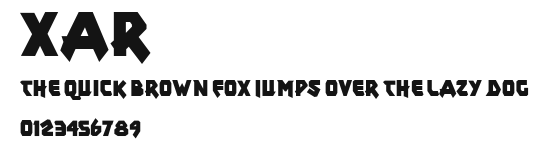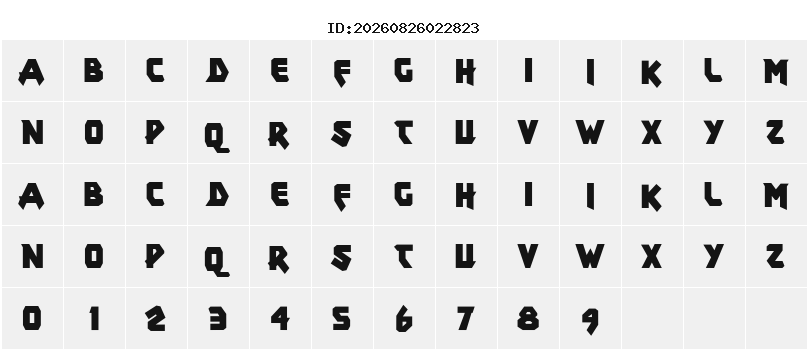
xar Preview
• Font Name: xar
• Full Font Name: xar
• PostScript Name: Xar
About xar.ttf
xar.ttf is a modern, elegant sans-serif font designed for ultimate readability and visual harmony. Perfect for branding, headlines, web design, and print materials.